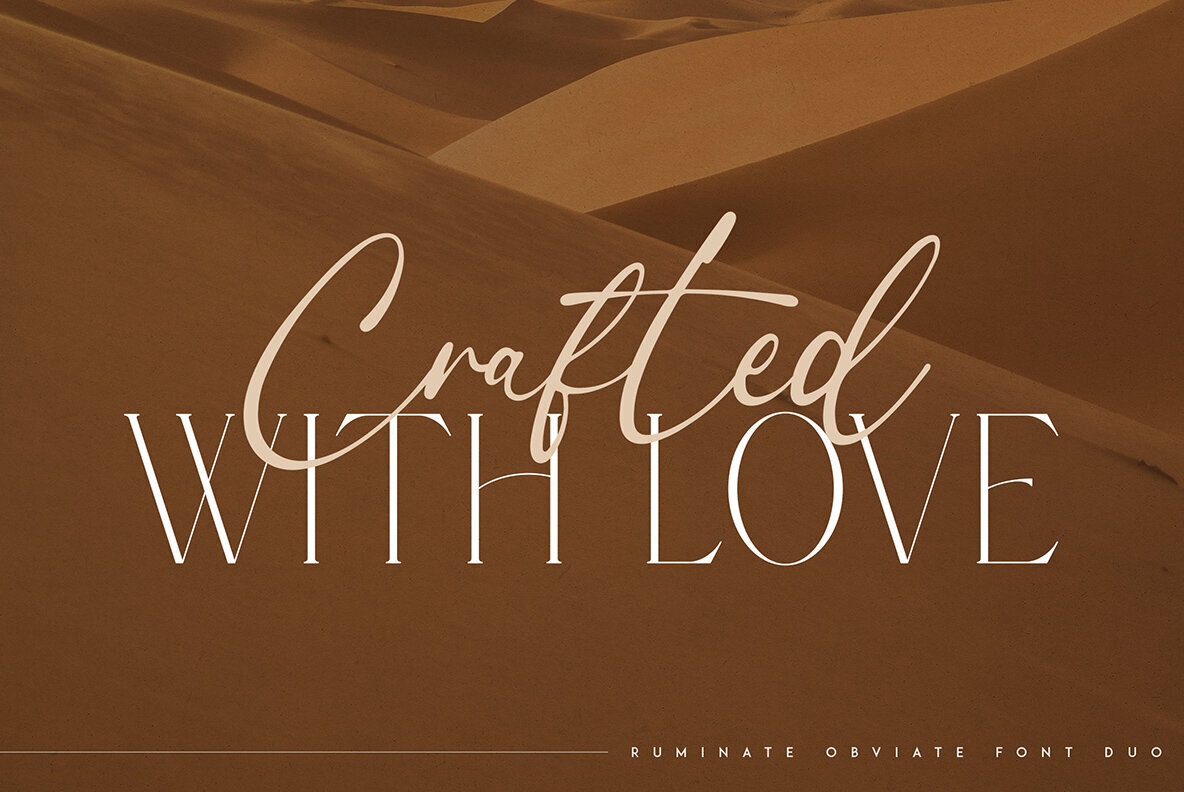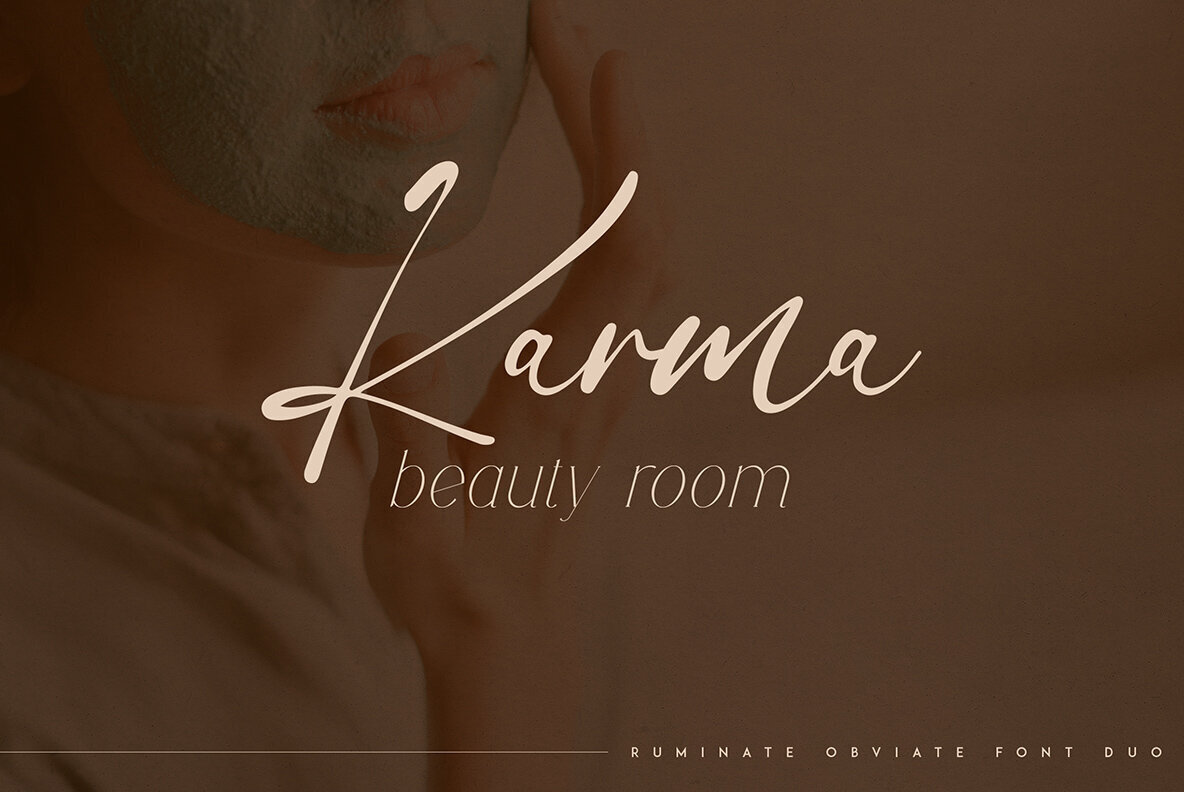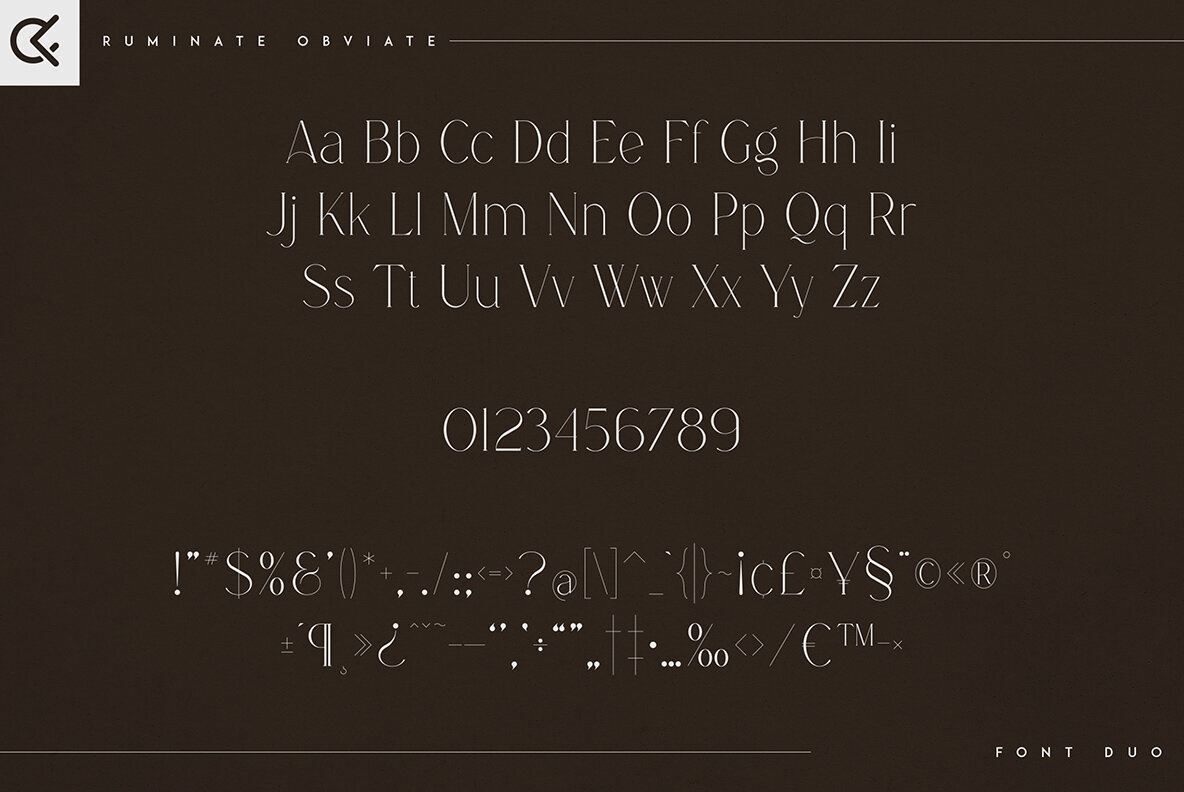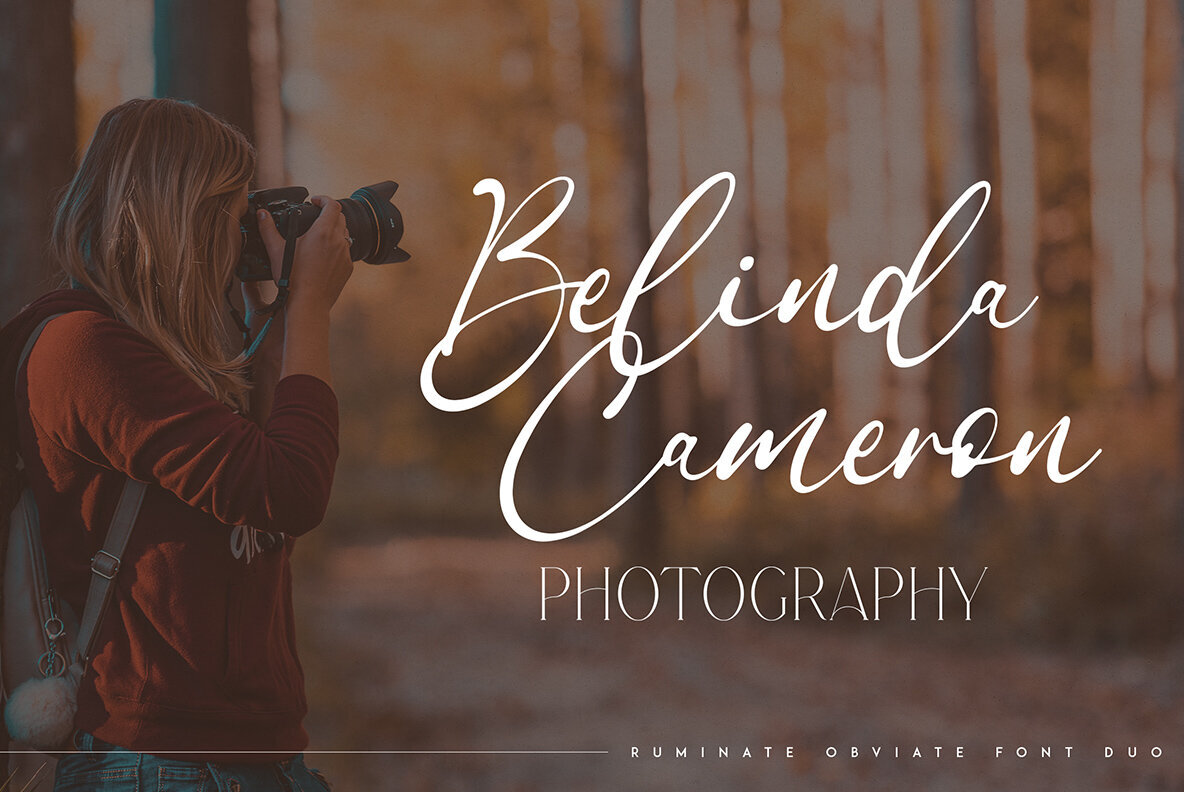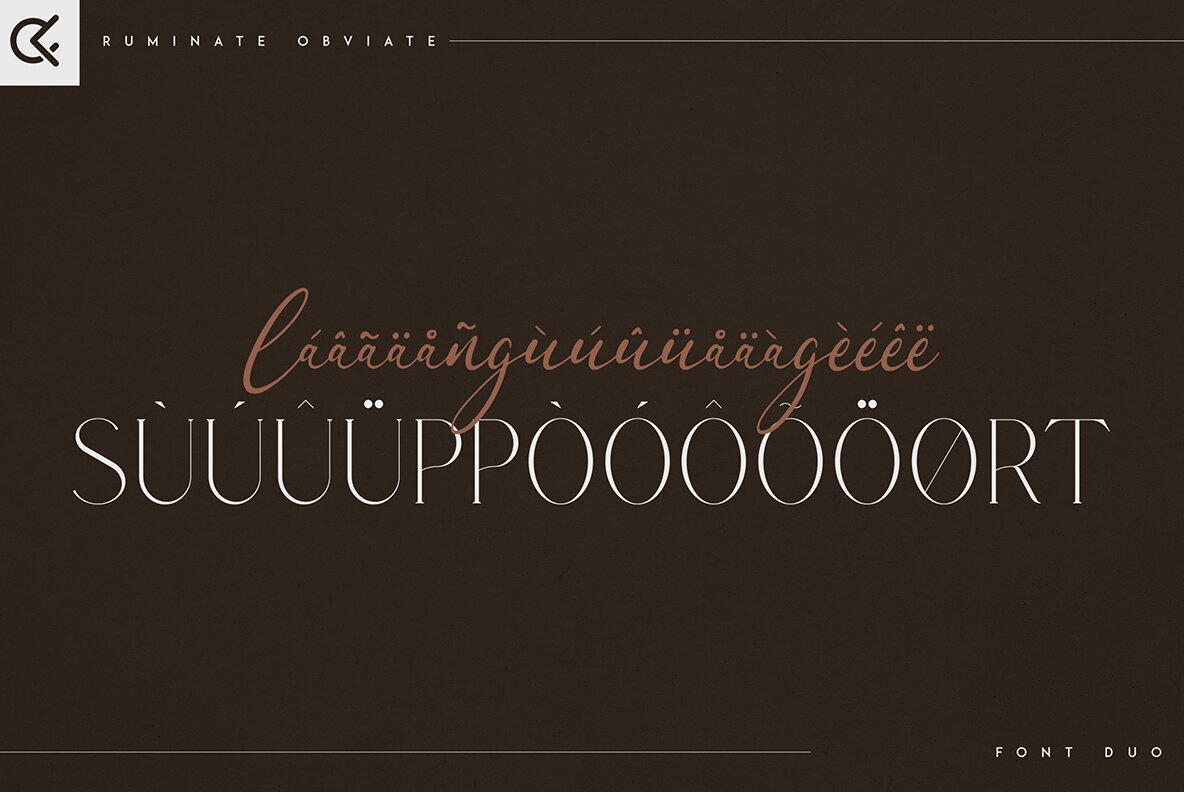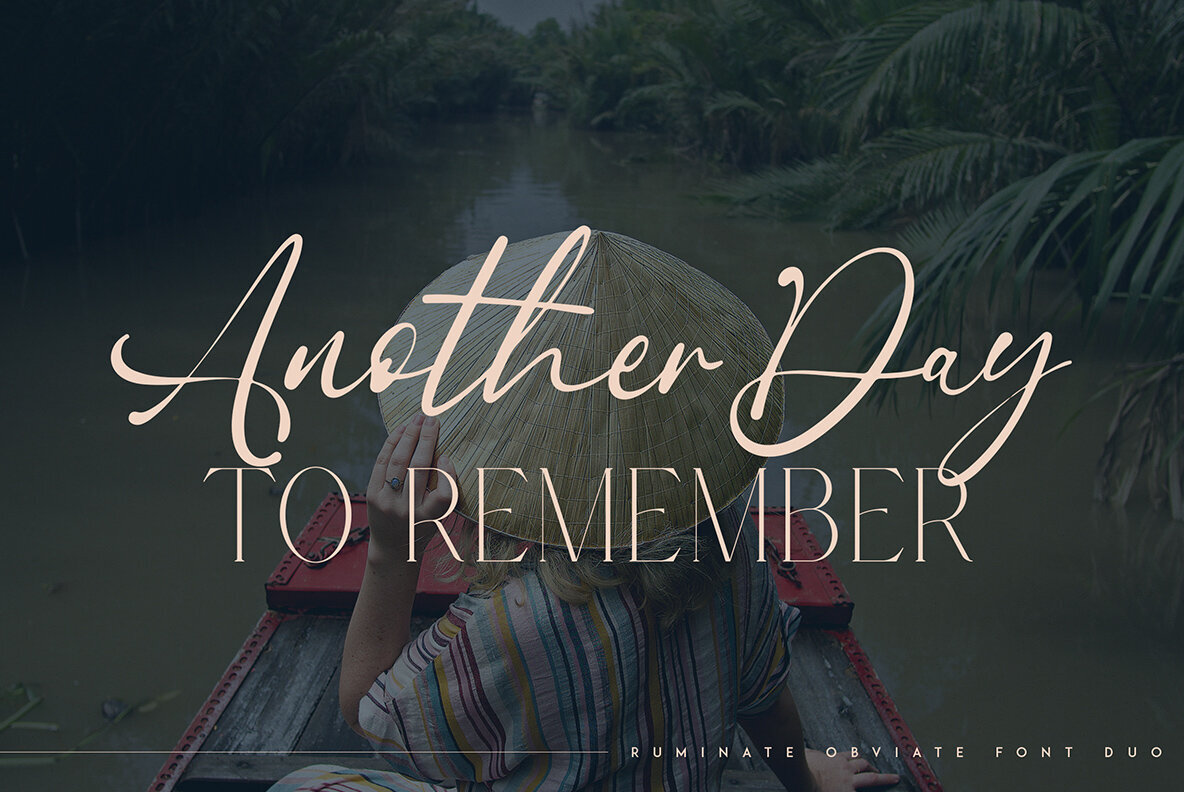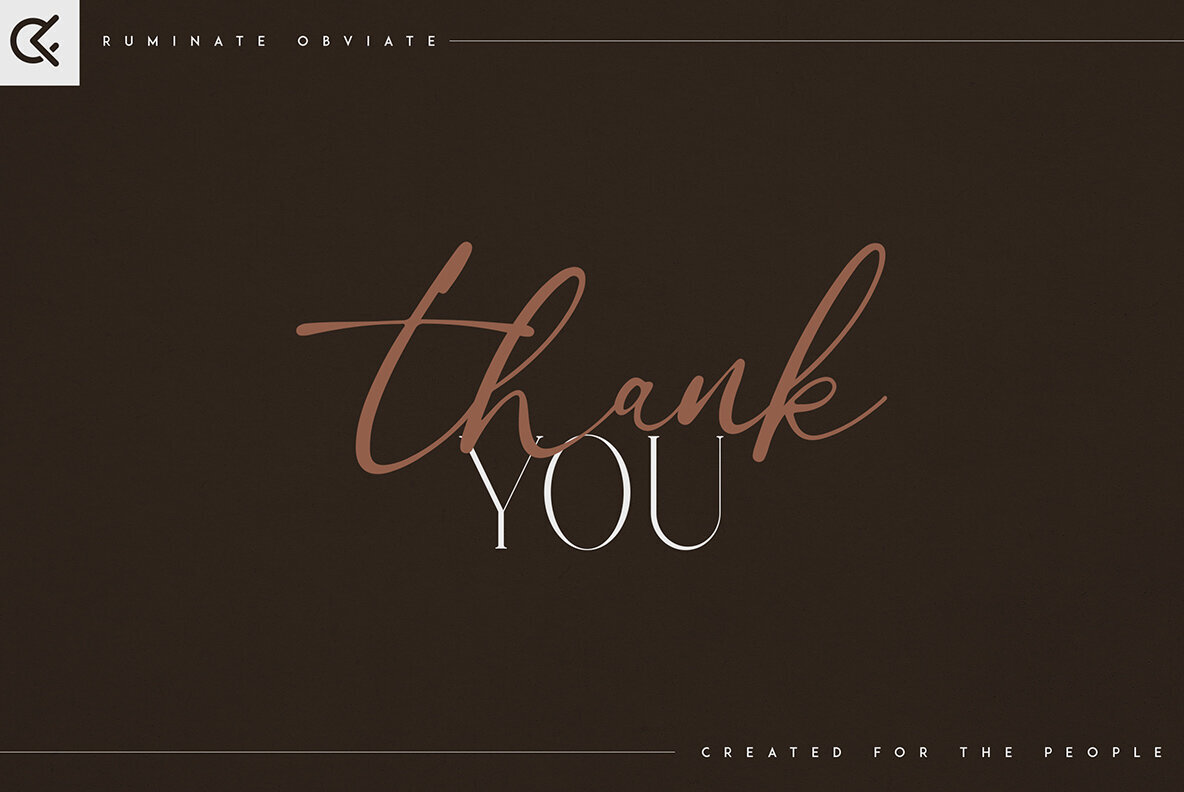
Ruminate and Obviate Font
Ruminate & Obviate is an elegant and organic typeface duo with multilingual support, offering remarkable versatility for both large and small sizes. Ideal for branding projects, home-ware designs, product packaging, magazine headers, or simply as a stylish text overlay on any background image. Key features include uppercase, lowercase, numerals, punctuation, symbols, regular style, italic, alternate, script, and multilingual support. No special software is required to type out the standard characters of the typeface, making it Canva-friendly. Discover the sophistication and adaptability of Ruminate & Obviate for your next design project.